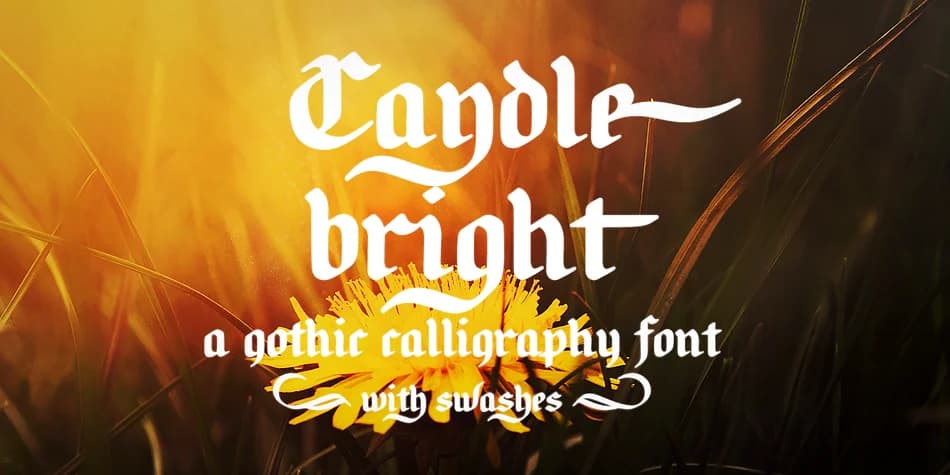
Candlebright by Ana's Fonts reimagines the blackletter category with unexpected warmth. These rounded letterforms and smooth flowing lines soften what's typically a rigid, heavy typeface style, making this font equally at home in modern brand systems and vintage-inspired designs. With 345 glyphs covering A-Z, numbers, accents, and punctuation, plus stylistic alternates, swashes, and ligatures, you have real depth to play with. The matching ornament set gives you embellishments ready to use without hunting for decorative companions elsewhere.
This typeface shines on wedding invitation suites, luxury product packaging, boutique restaurant menus, and vintage brand identity work. The breadth of the character set means multilingual projects don't hit language roadblocks. Ornaments can frame headlines or accent packaging without feeling like they're bolted on as an afterthought. You get the flexibility to vary text throughout a project while maintaining visual coherence and sophistication that feels intentional.
This font works best when you're designing work that needs personality and craft: logotypes, editorial display sections, premium social media graphics, and website headers where visual weight matters. If you're building brands that blend history with contemporary sensibility, Candlebright delivers that balance without feeling like pastiche. Find it on Creative Fabrica and add this versatile typeface to your working collection.
- Ornate, Gothic
- Logos, Certificates
- medieval themes, band merch, and tattoo lettering
- a clean sans-serif for body text
Candlebright Font is a blackletter font that shines as a display or heading face. Pair it with a clean serif or sans-serif font for body text β the contrast creates a clear hierarchy while the two styles stay balanced and easy to read.
Candlebright Font
by Ana's Fonts